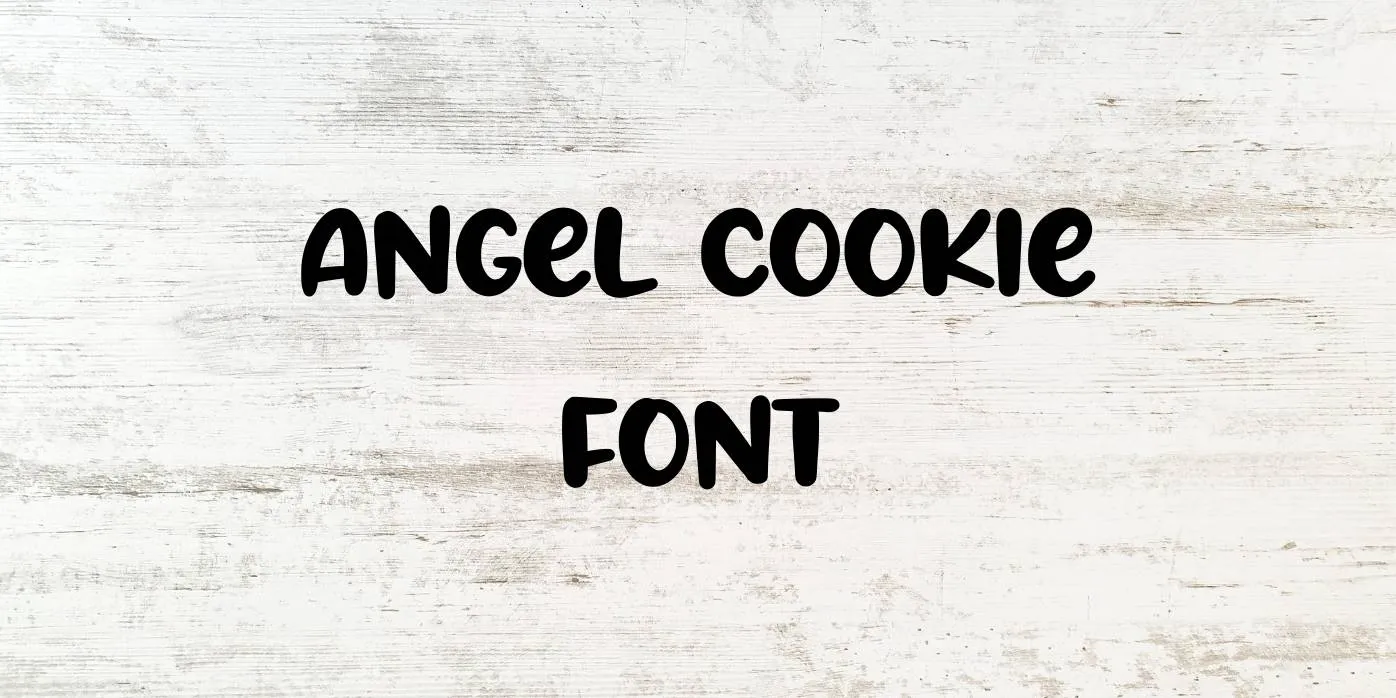
Angel Cookie Font
Angel cookie font is a sweet & fun Handwritten brush typeface. And that typeface family was Designed by Restu Angga, After Designing this handwritten font was published by Balpirick. This font contains 1 style. And that font has swashes and spacing in characters is good for its styles.
In today’s modern era, that type of simple and handwritten style typeface is so popular because their handwriting looks, simple and clear. If you used that type of font in our designing posters or calligraphy So that typeface turns the idea about that design into a piece of special Art. And designing calligraphy for different designing purposes especially t-shirt designing or Product packaging design for children‚Äôs items by using simply that typeface to create your Professional Design. That typeface supports mostly languages including Spanish, Irish, Norwegian, Albanian, English, German Catalan, Danish, etc.
This typeface is very similar to the tulisan tangan font. Usage If you are looking typeface for cartoon designing or calligraphy for a DIY type project, that font will turn your idea into a piece of art. After that, this typeface is perfectly used for product packaging, branding DIY project, Social media, Wedding invitation cards, etc. If you design a Logo and use this font So the logo will look like they are drawn by hand.
What Font is similar to Angel Cookie Font? Yes, To see the different qualities of this typeface and the characters, weights, etc. So the only on is similar to that typeface is Victoria’s Secret font. Is there an angel cookie in a regular font?
In the angels’ cookie typeface, There is an angels cookie regular and also available in the angel’s cookie bold font.